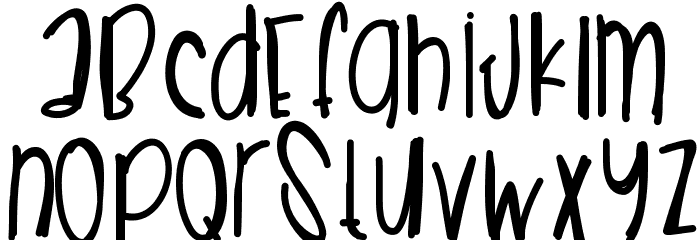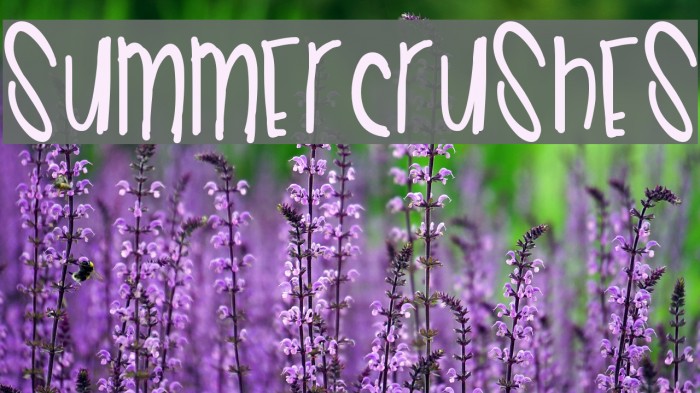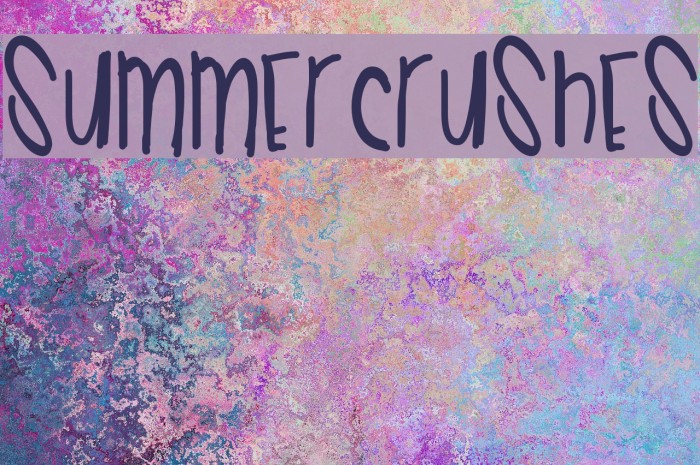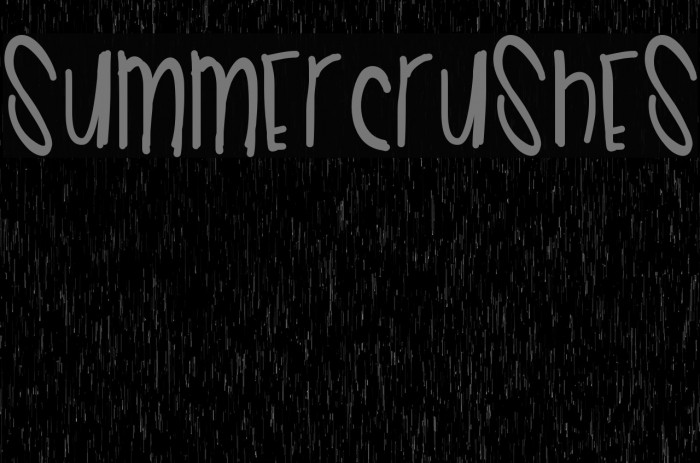
SummerCrushes Font
This playful and whimsical font features a handwritten style with a casual and informal appearance. The characters are slightly irregular, adding a charming and personal touch. The uppercase and lowercase letters maintain a consistent flow, with rounded edges and a slightly slanted orientation. The numbers and special characters complement the overall style, enhancing its friendly and approachable feel. This font is perfect for projects that require a fun and lively aesthetic, such as children's books, greeting cards, or playful branding.
A playful, handwritten font with a whimsical and casual style.
- Proposed Projects: Ideal for children's books, greeting cards, playful branding, and informal invitations.
- Overall Style: Playful
- Use Case: Headlines, Logos, Informal Text